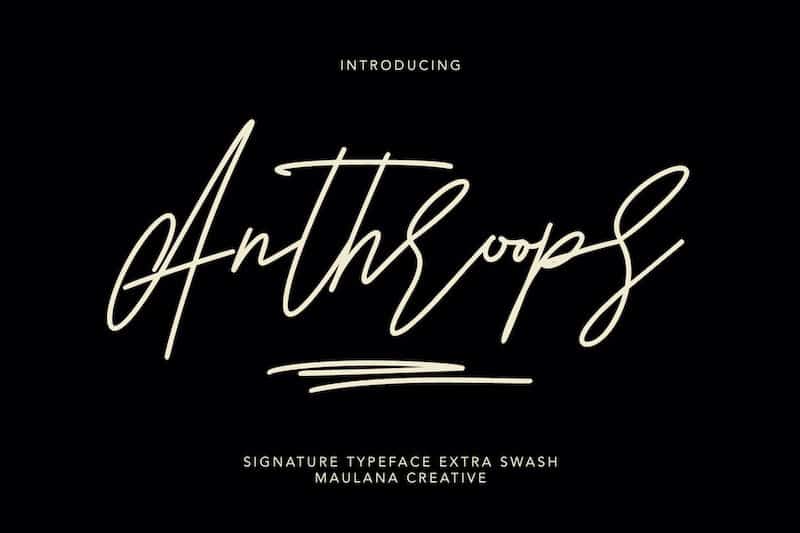
Anthroops Font
Anthroops Handwritten Font is Beautiful Monoline font with a natural handwritten feel. perfect for any creative design. This handmade font will make your design has a beautiful natural touch for each details. This typeface is perfectly suited to signature, stationery, logo, typography quotes, magazine or book cover, website header, clothing, branding, packaging design and more.